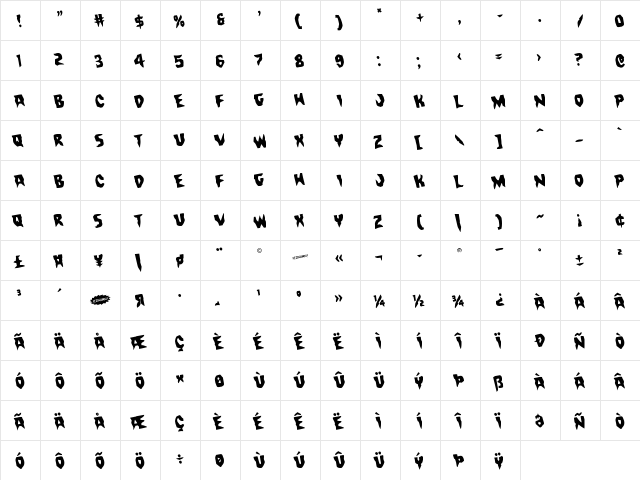
Count Suckula Rotated Regular
Design Context for Count Suckula Rotated Typeface
Count Suckula Rotated is a composed and adaptable typeface that performs quietly and consistently across a wide range of design contexts.